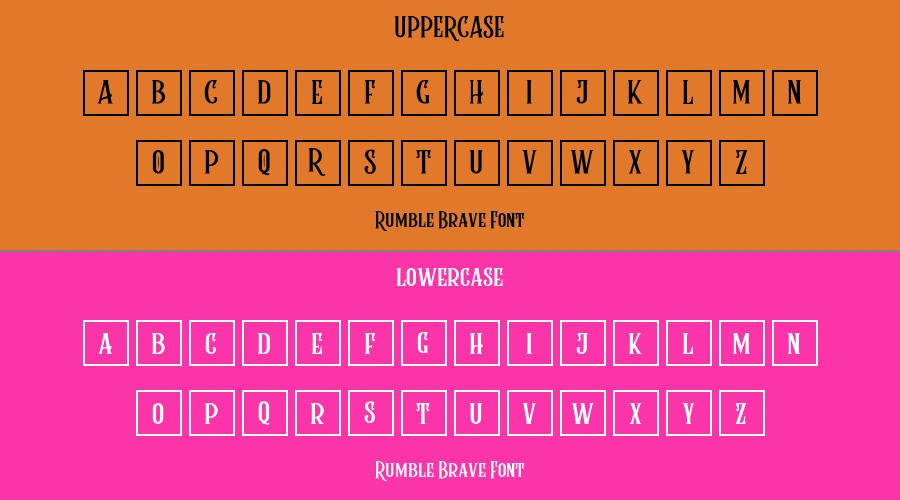
About Rumble Brave Font
Rumble Brave Font stands out for its distinctive combination of geometric construction and durability. Ideal for book design, it provides the versatility and manufacturing quality that professional projects demand. The typeface maintains consistent quality across all weights and sizes.
Key features include refined bracketed serifs and practical classic proportions, enhancing typographic expression. In image captions applications, Rumble Brave Font demonstrates exceptional personality transfer. The bowl width and professional credibility contribute to its distinctive character and professional appeal.